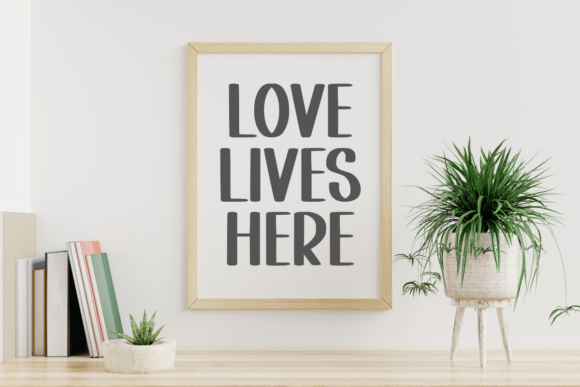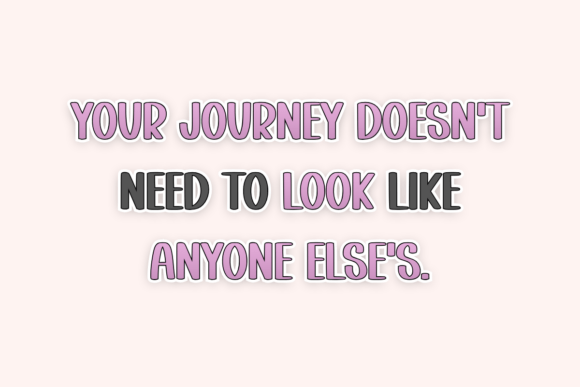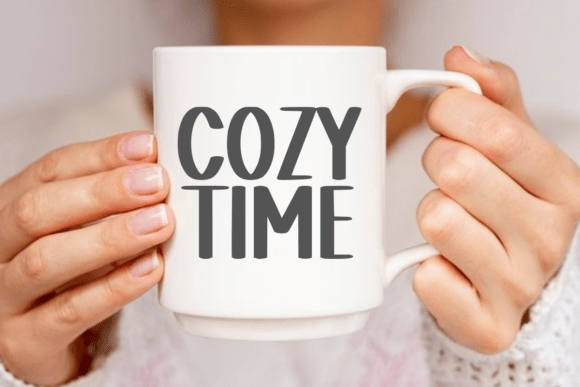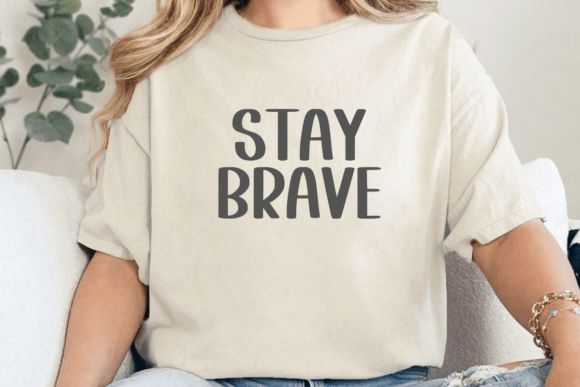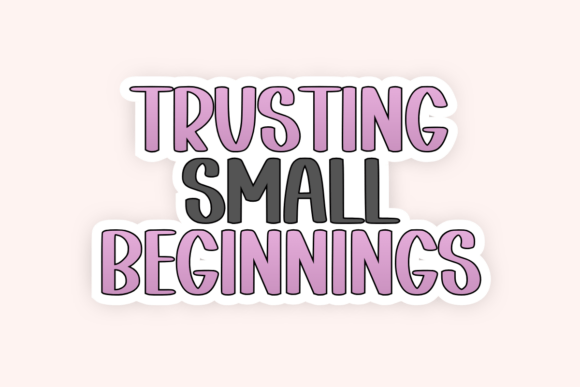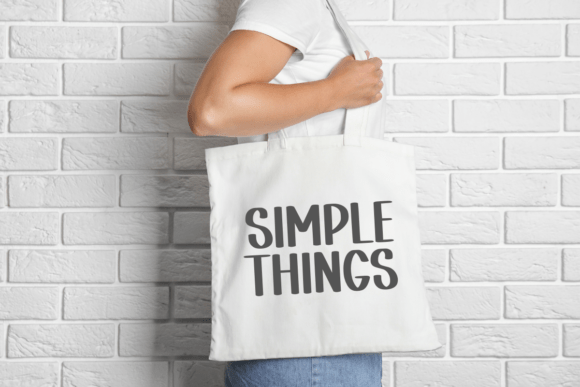
Introducing Buget Tracker Font: The Perfect Handwritten Style for Crafty Projects
Are you a crafter, designer, or DIY enthusiast looking for a font that can add a personal touch to your projects? Look no further than Buget Tracker Font, a charming sans serif handwriting font designed to bring a soft, friendly, and natural look to your creations. In this article, we’ll explore the features and benefits of Buget Tracker Font, and how it can elevate your craft projects, planners, stickers, and more.
A Warm and Handcrafted Feel
Buget Tracker Font is carefully crafted to evoke a warm, handcrafted feeling that’s perfect for crafty projects. Its simple strokes and smooth curves make it easy to read and visually appealing. The font’s soft and friendly look is ideal for creating a personal touch in your designs, making it perfect for craft projects, planners, stickers, kids’ worksheets, classroom printables, and DIY designs.
Perfect for Crafting Moms and Designers
Buget Tracker Font is a dream come true for crafting moms and designers who love adorable handwritten styles. The font’s smooth curves and simple strokes make it easy to cut using Cricut and Silhouette, making it perfect for a wide range of craft projects. Whether you’re creating custom stickers, labels, or decorations, Buget Tracker Font is the perfect choice.
Buget Tracker Font is incredibly versatile and can be used for a wide range of creative projects. Here are some ideas to get you started:
- Quotes: Add a personal touch to your inspirational quotes and sayings with Buget Tracker Font.
- Greeting cards: Create custom greeting cards for special occasions, such as birthdays, holidays, and more.
- Kids’ labels: Use Buget Tracker Font to create fun and colorful labels for kids’ projects, folders, and more.
- Coloring pages: Add a personal touch to your coloring pages with Buget Tracker Font.
- Worksheets: Create engaging and interactive worksheets for kids with Buget Tracker Font.
- Bullet journals: Use Buget Tracker Font to add a personal touch to your bullet journal or planner.
- Scrapbooks: Create beautiful and personalized scrapbooks with Buget Tracker Font.
- Playful graphic projects: Use Buget Tracker Font to add a playful touch to your graphic projects, such as posters, flyers, and more.
Why Choose Buget Tracker Font?
So why choose Buget Tracker Font for your craft projects and designs? Here are just a few reasons:
- Unique and adorable handwritten style
- Soft, friendly, and natural look
- Easy to read and visually appealing
- Perfect for craft projects, planners, stickers, and more
- Easy to cut using Cricut and Silhouette
- Endless creative possibilities